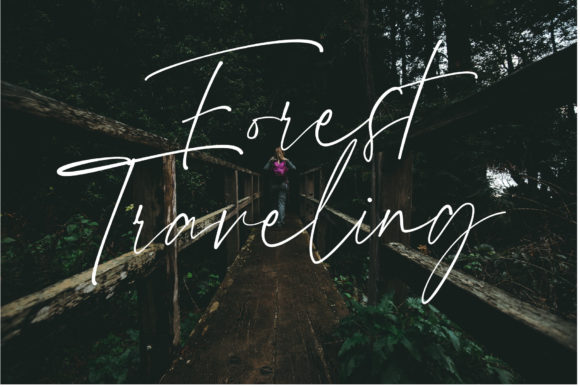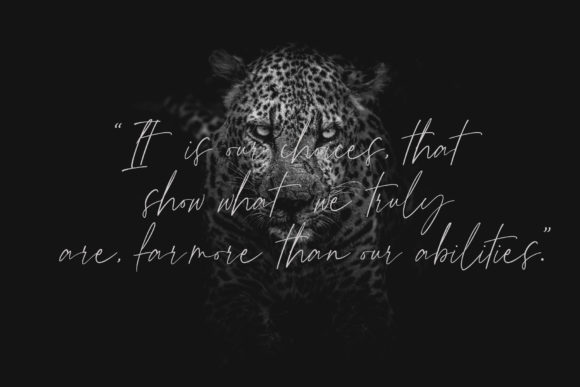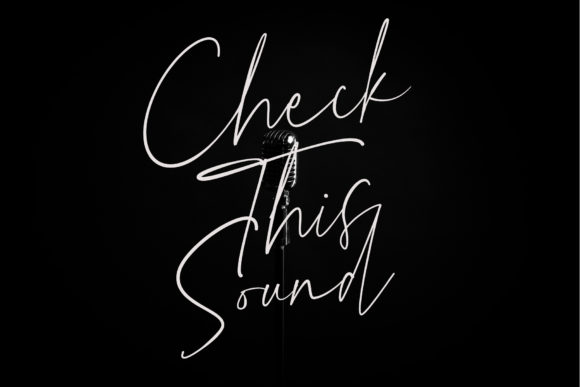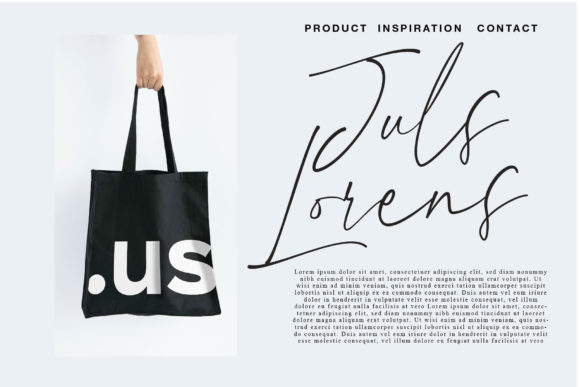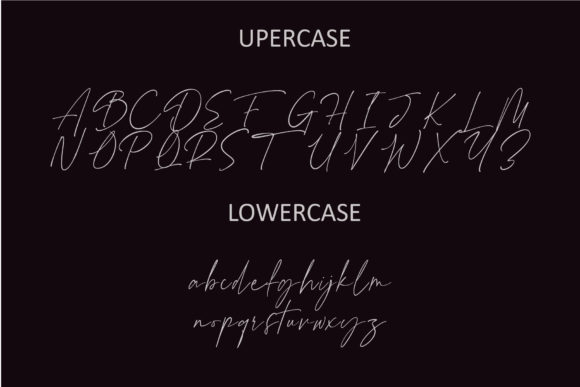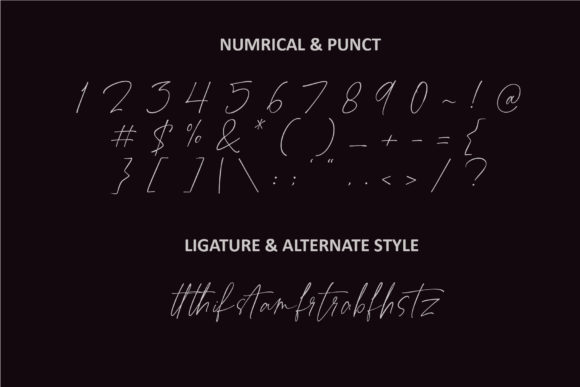
Busteg Font: Elevate Your Designs with Elegance and Sophistication
In the world of typography, fonts play a crucial role in conveying the tone and personality of a design. For designers and crafters seeking to add a touch of elegance and sophistication to their work, Busteg Font is an excellent choice. This delicate, thin lettered, and fashionable script font is perfect for creating stunning logos, branding materials, invitations, stationery, wedding designs, social media posts, and more.
The Characteristics of Busteg Font
Busteg Font boasts a classy, elegant, and modern look that sets it apart from other fonts. Its key characteristics include:
- Delicate and Thin Lettering: The font features slender lines and curves, giving it a refined and sophisticated appearance.
- Fashionable Script Style: Busteg Font has a stylish script design that adds a touch of glamour to any project.
- Elegant and Modern Look: The font’s clean lines, balanced proportions, and subtle flair at the terminals create a sense of luxury and refinement.
Uses of Busteg Font
The versatility of Busteg Font makes it suitable for a wide range of design applications, including:
- Logos and Branding: Create a lasting impression with a custom logo that exudes elegance and sophistication.
- Invitations and Stationery: Add a touch of refinement to your invitations, greeting cards, and stationery with Busteg Font.
- Wedding Designs: Make your wedding designs, such as invitations, programs, and place cards, truly unforgettable with this beautiful font.
- Social Media Posts: Elevate your social media presence with stylish and engaging posts that showcase your brand’s personality.
Why Choose Busteg Font?
With so many fonts available, why choose Busteg Font for your design projects? Here are a few compelling reasons:
- Unique and Versatile: Busteg Font offers a distinctive and adaptable design that can be used in various contexts.
- High-Quality Design: The font is crafted with attention to detail, ensuring a high level of quality and consistency.
- Easy to Read: Despite its delicate nature, Busteg Font remains clear and legible, making it perfect for body text and headlines.
Tips for Using Busteg Font Effectively
To get the most out of Busteg Font, consider the following tips:
- Pair with Complementary Fonts: Combine Busteg Font with contrasting fonts to create visual interest and hierarchy.
- Experiment with Colors: Take advantage of Busteg Font’s elegance by pairing it with a range of colors that match your brand’s aesthetic.
- Use for Headlines and Titles: Busteg Font is perfect for headlines, titles, and captions, where its elegance and sophistication can shine.
Busteg Font is a stunning and versatile script font that can elevate your designs to new heights. With its delicate and thin lettering, fashionable script style, and elegant modern look, it’s perfect for designers and crafters seeking to add a touch of sophistication to their work. Whether you’re creating logos, branding materials, invitations, or social media posts, Busteg Font is an excellent choice. So why wait? Download Busteg Font today and experience the power of elegant typography in your designs.